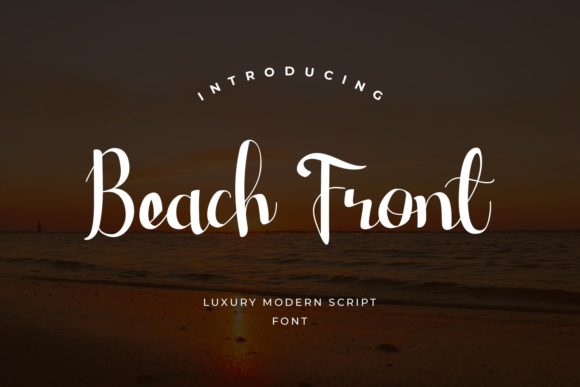
Beach Front Font: The Epitome of Coastal Charm
Dive into the tranquil waters of creativity with Beach Front Font, an exquisite script typeface that embodies the allure of sun-drenched shores. Its graceful curves and flowing strokes evoke the calming rhythm of ocean waves, inviting you to craft designs that resonate with serenity and sophistication.
From the moment your eyes first behold Beach Front Font, you'll be mesmerized by its captivating charm. Each letter is a masterpiece, meticulously crafted with a unique and beautiful touch. The result is an enchanting typeface that breathes life into your designs, transforming them into captivating works of art.
Step into a world where your words dance with an ethereal elegance. Beach Front Font is the perfect choice for creating logos that command attention, branding that exudes style, and quotes that inspire the soul. Its versatility knows no bounds, adapting effortlessly to a symphony of creative endeavors.
With Beach Front Font as your faithful companion, you'll embark on an artistic journey where every stroke is a testament to your passion. Whether you're designing for print, web, or social media, this extraordinary script will elevate your creations to new heights.
Indulge in the beauty of Beach Front Font and experience the transformative power of words. Let its coastal charm inspire your designs, capturing the essence of summer breezes and endless horizons. Dive into a world of creativity where imagination flows as freely as the ocean tide.